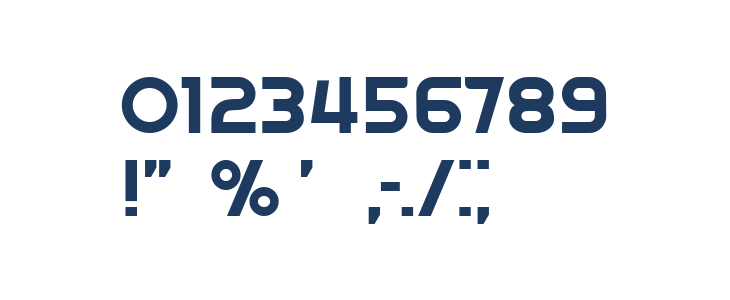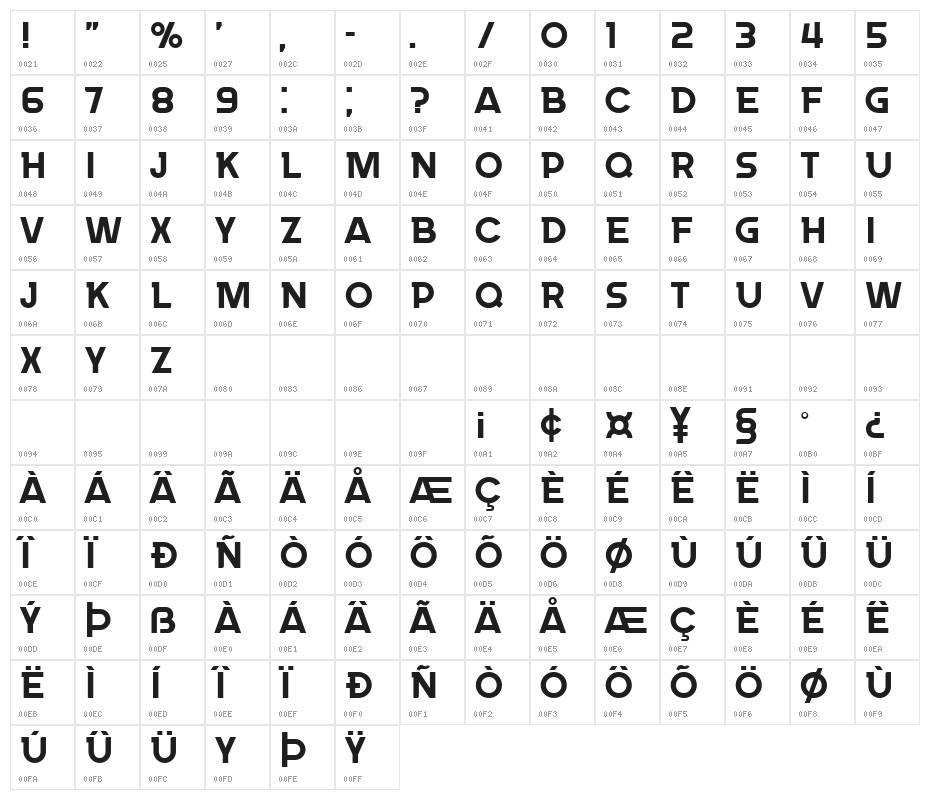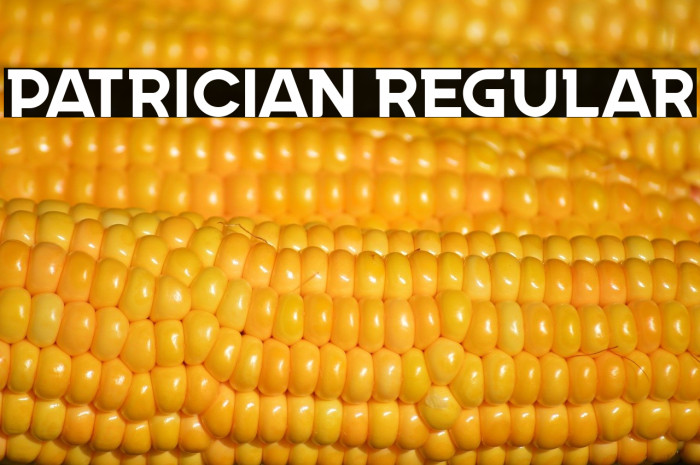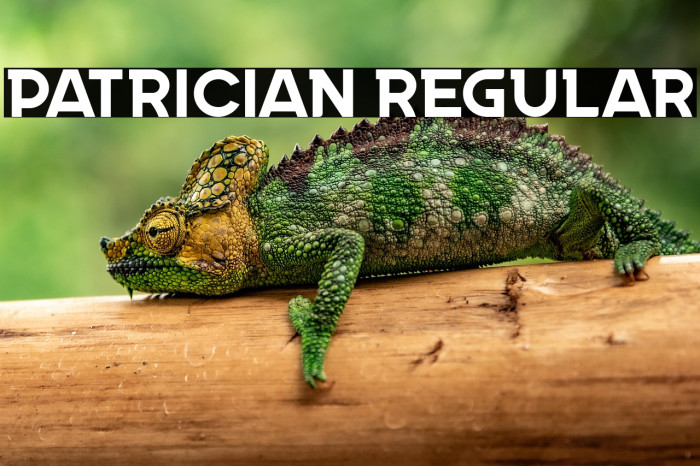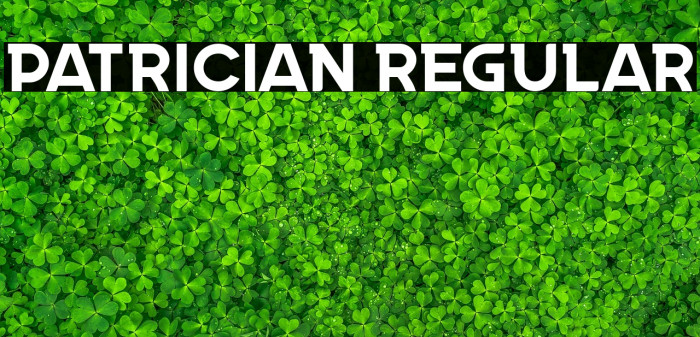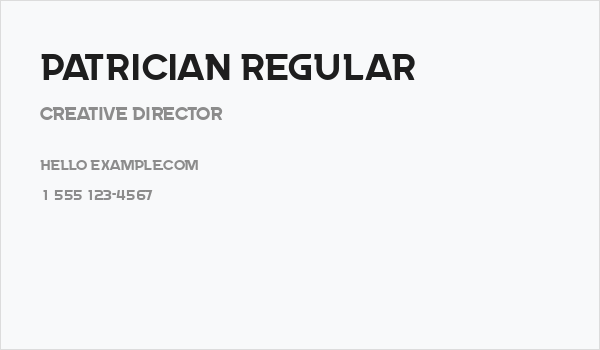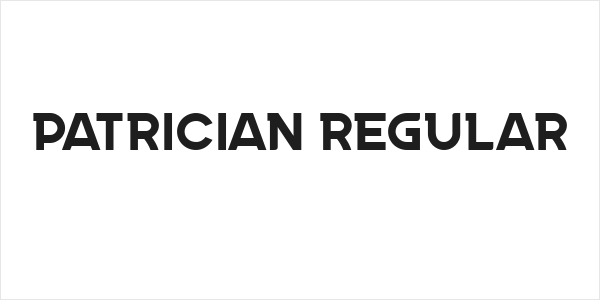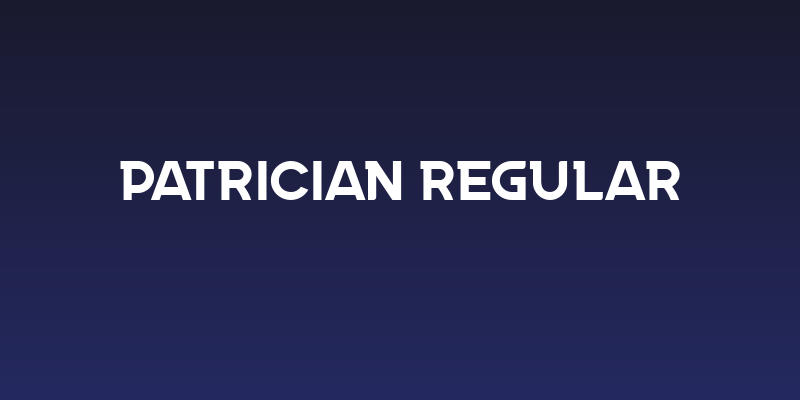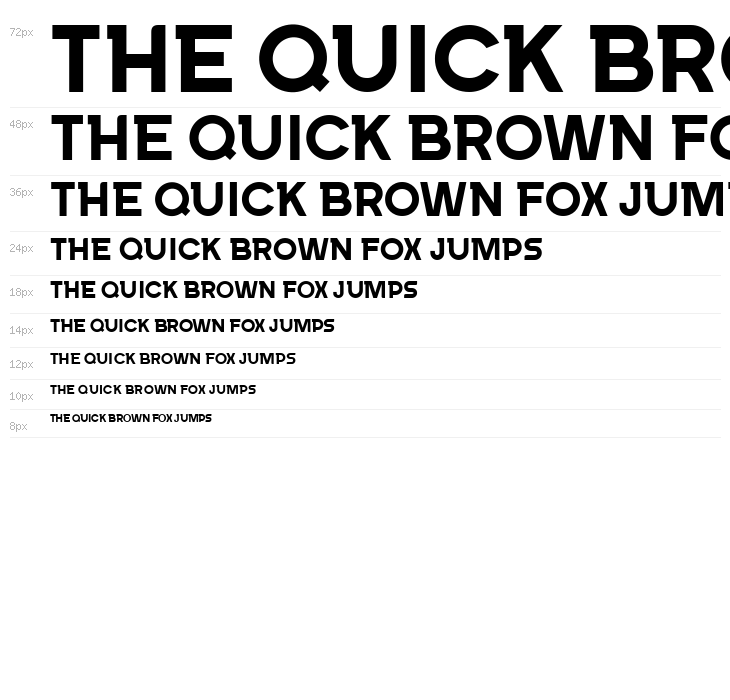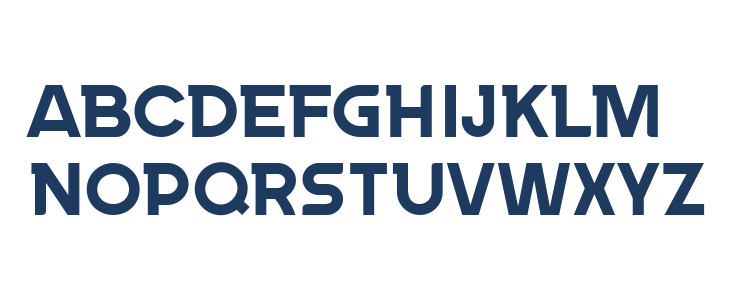
Patrician Regular Font
Patrician Regular Description
This font exhibits a bold and modern aesthetic, characterized by clean, geometric lines and a strong presence. The uppercase letters are uniform in height, with a slight angularity that adds a contemporary edge. The lowercase letters maintain a consistent weight, ensuring readability while preserving the font's bold nature. The numerals are distinct and clear, matching the overall style of the alphabet. Special characters are designed with the same attention to detail, providing a cohesive look across all glyphs. This typeface is versatile, suitable for various design applications where a modern and impactful appearance is desired.